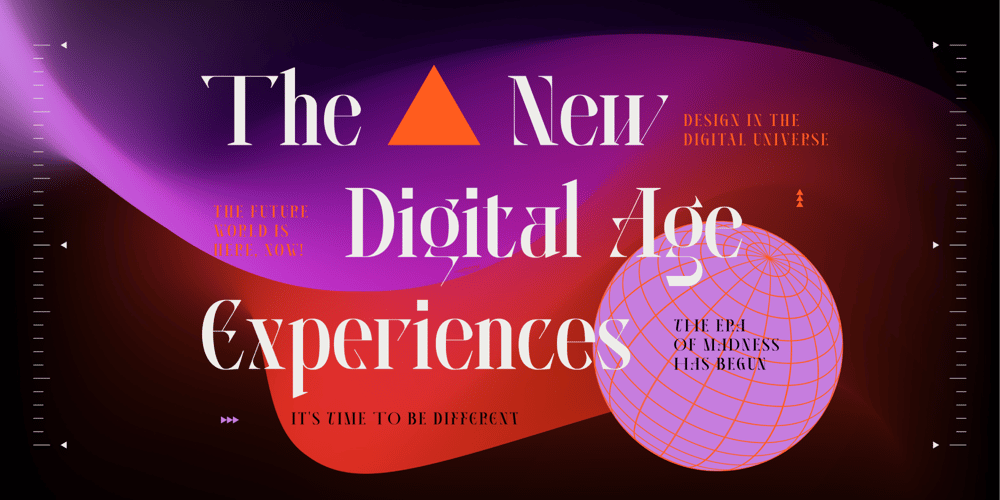
AO Hyperion Font Family was designed by Ally Hamid and published by OwunStudio. AO Hyperion contains 1 styles and family package options. Hyperion is high contrast serif font with clean, sharp and elegant lines and shapes. Features a mixed modern-futuristic design, being a typeface whose conception is highly drawn to the idea of modernity.All contain character sets that includes approximately 600+ glyphs, support multilingual languages, numbers, punctuation and many alternative-ligatures. This Hyperion Display can make your project perfect for headlines, editorial design, monograms, branding, logos, poster design, or other typographic compositions.